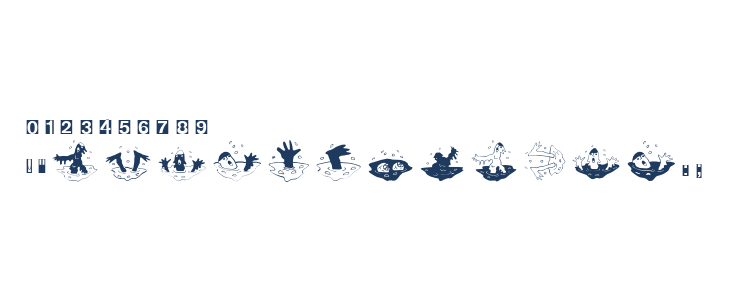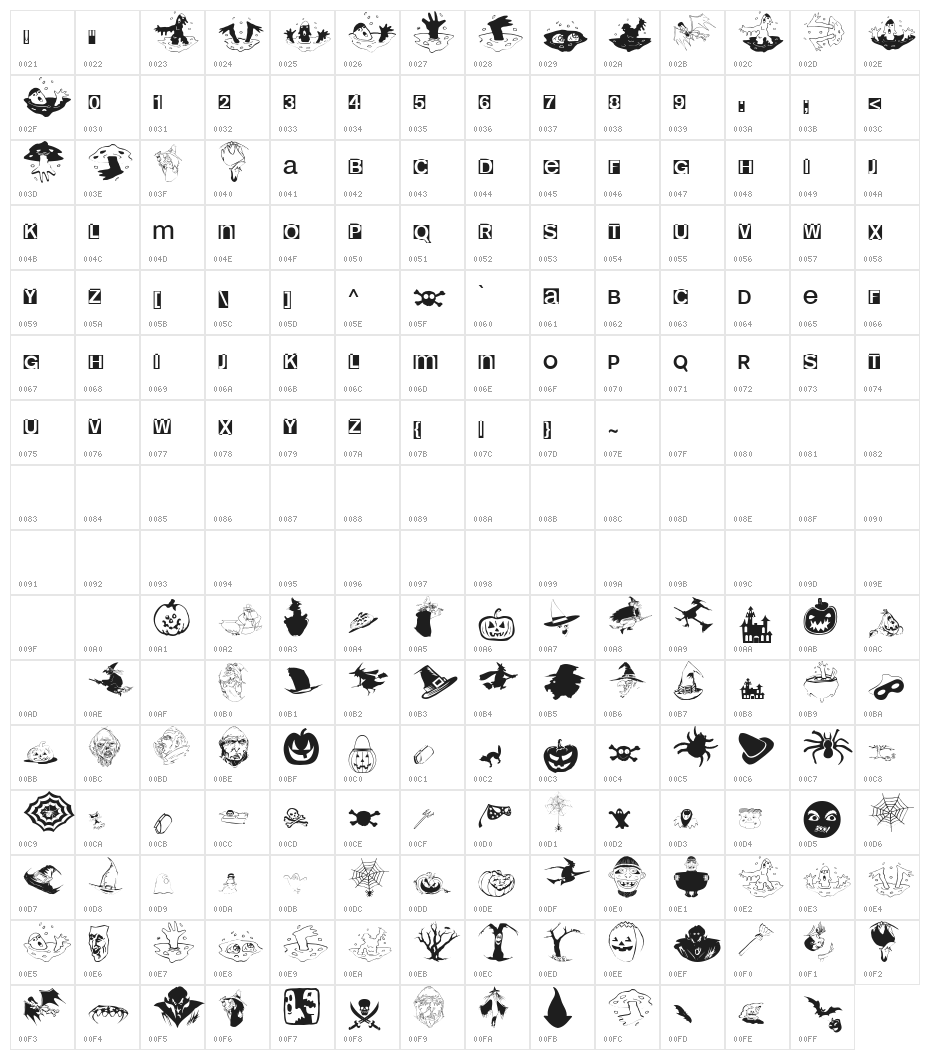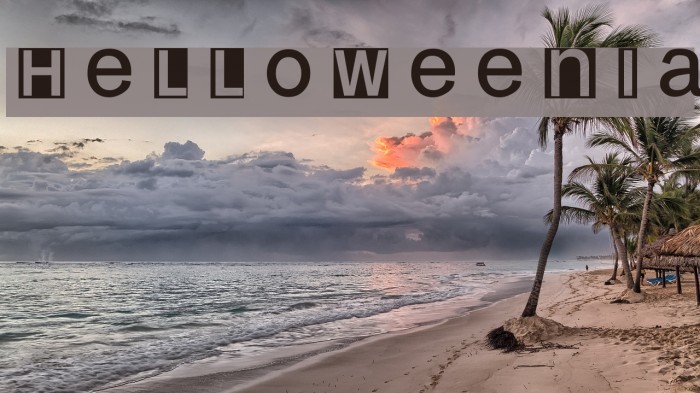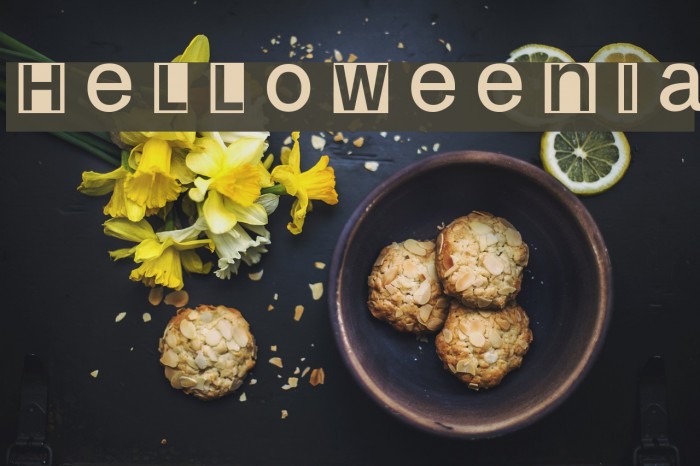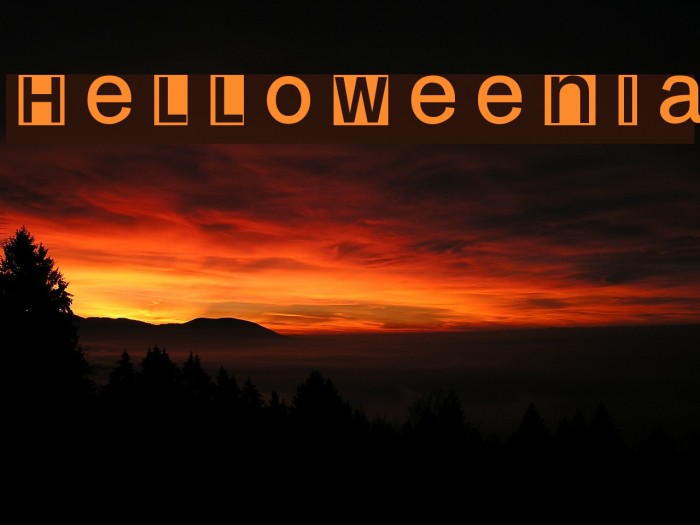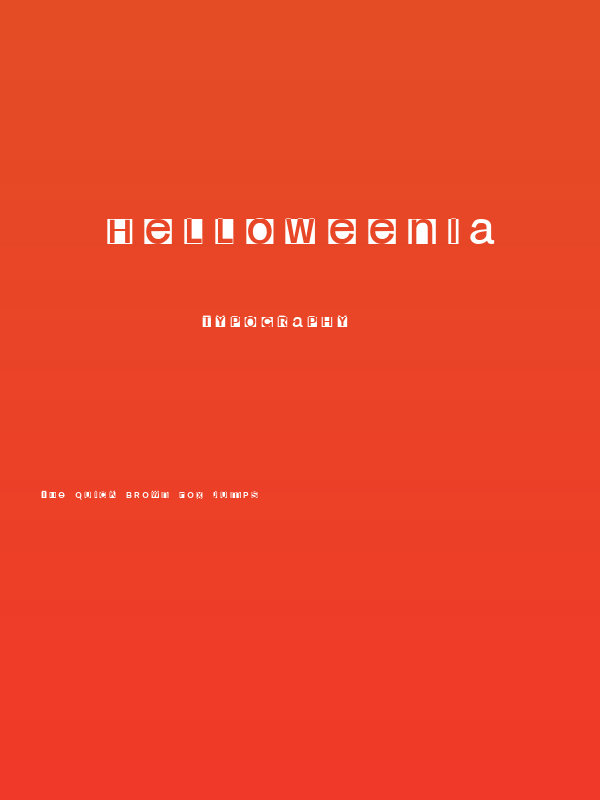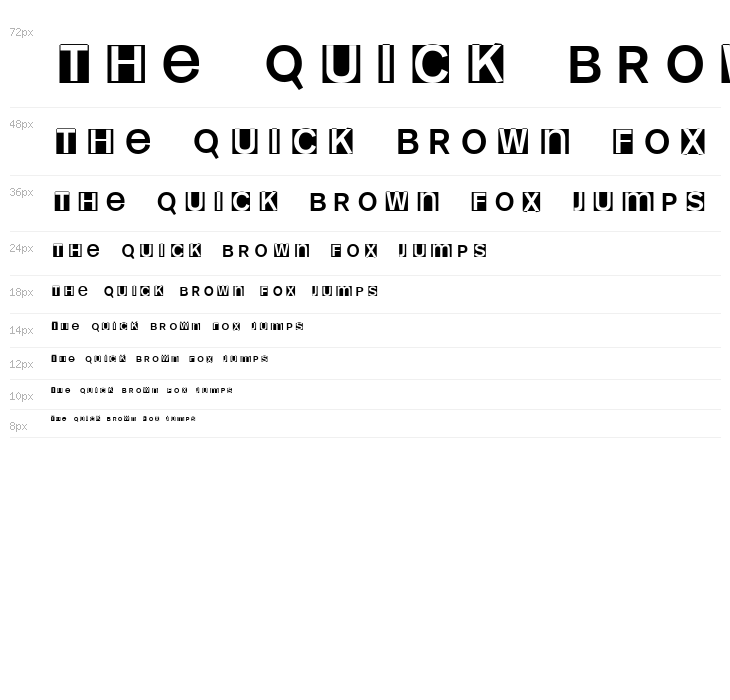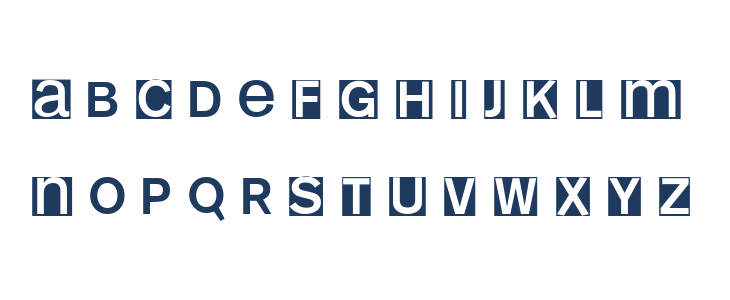
HelloweeniA Font
HelloweeniA Description
This font features a playful and spooky design, perfect for Halloween-themed projects. The uppercase letters are bold and blocky, with a shadow effect that adds depth and a touch of mystery. The lowercase letters maintain a similar style, ensuring consistency across text. The numbers are equally bold, making them stand out in any design. Special characters are creatively designed with Halloween motifs, adding a unique and festive touch. This font is ideal for creating eye-catching headlines, posters, and invitations for Halloween events.
| Proposed Projects | Ideal for Halloween posters, party invitations, themed merchandise, and festive banners. |